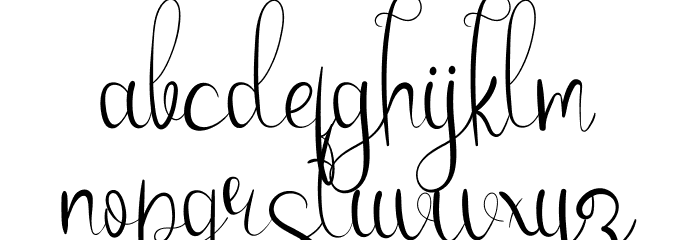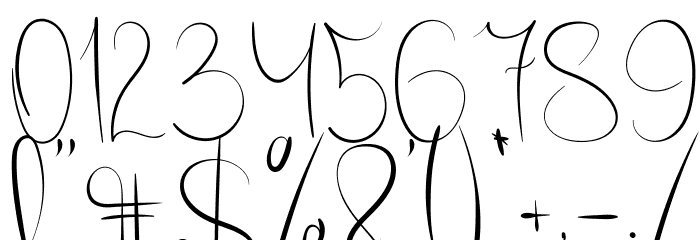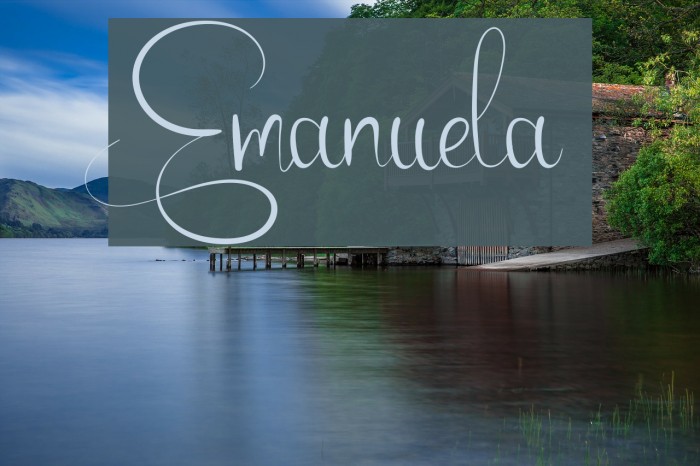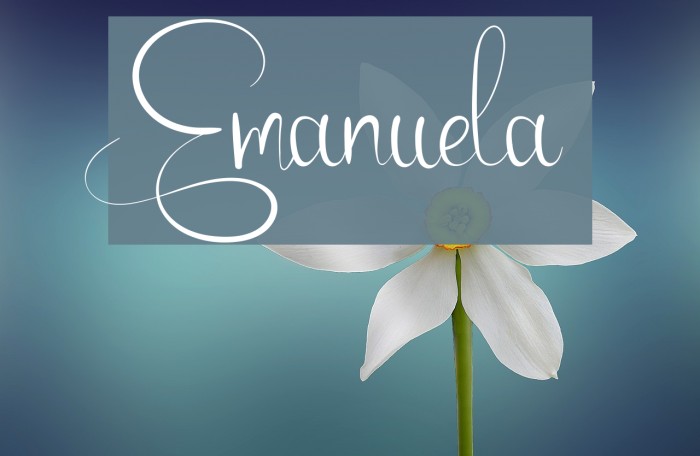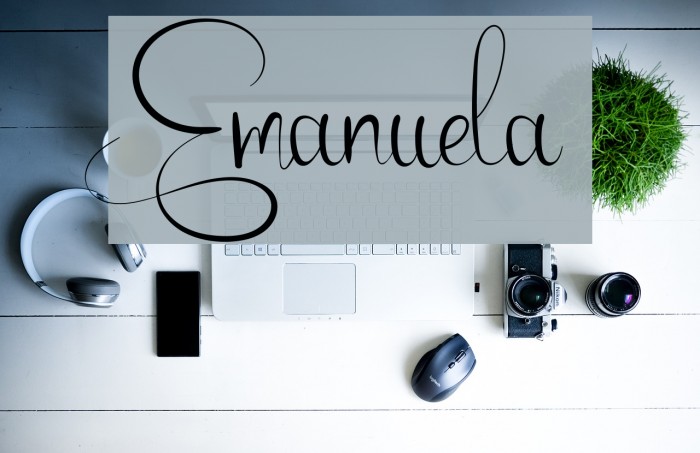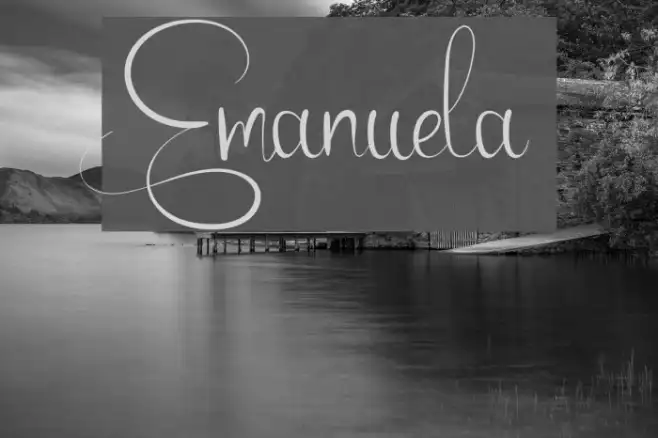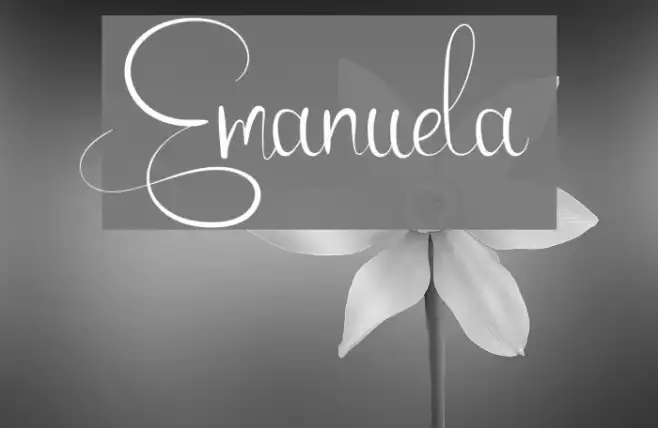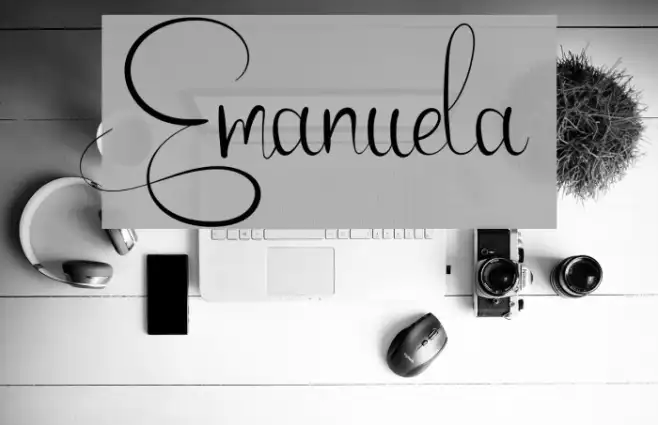
Emanuela Font
This font features an elegant and flowing script style, characterized by its delicate and intricate letterforms. The uppercase letters exhibit a graceful loop and swirl design, adding a touch of sophistication and charm. The lowercase letters maintain a consistent fluidity, with smooth connections and gentle curves. The numerals are equally stylish, with a distinctive flair that complements the overall aesthetic. Special characters are thoughtfully designed to match the font's elegant theme. This font is ideal for projects that require a touch of elegance and creativity, such as invitations, branding, and decorative designs.
An elegant and flowing script font with intricate letterforms and graceful loops.
- Proposed Projects: Ideal for wedding invitations, branding, decorative designs, and elegant stationery.
- Overall Style: Elegant, Decorative
- Use Case: Invitations, Branding, Decorative designs